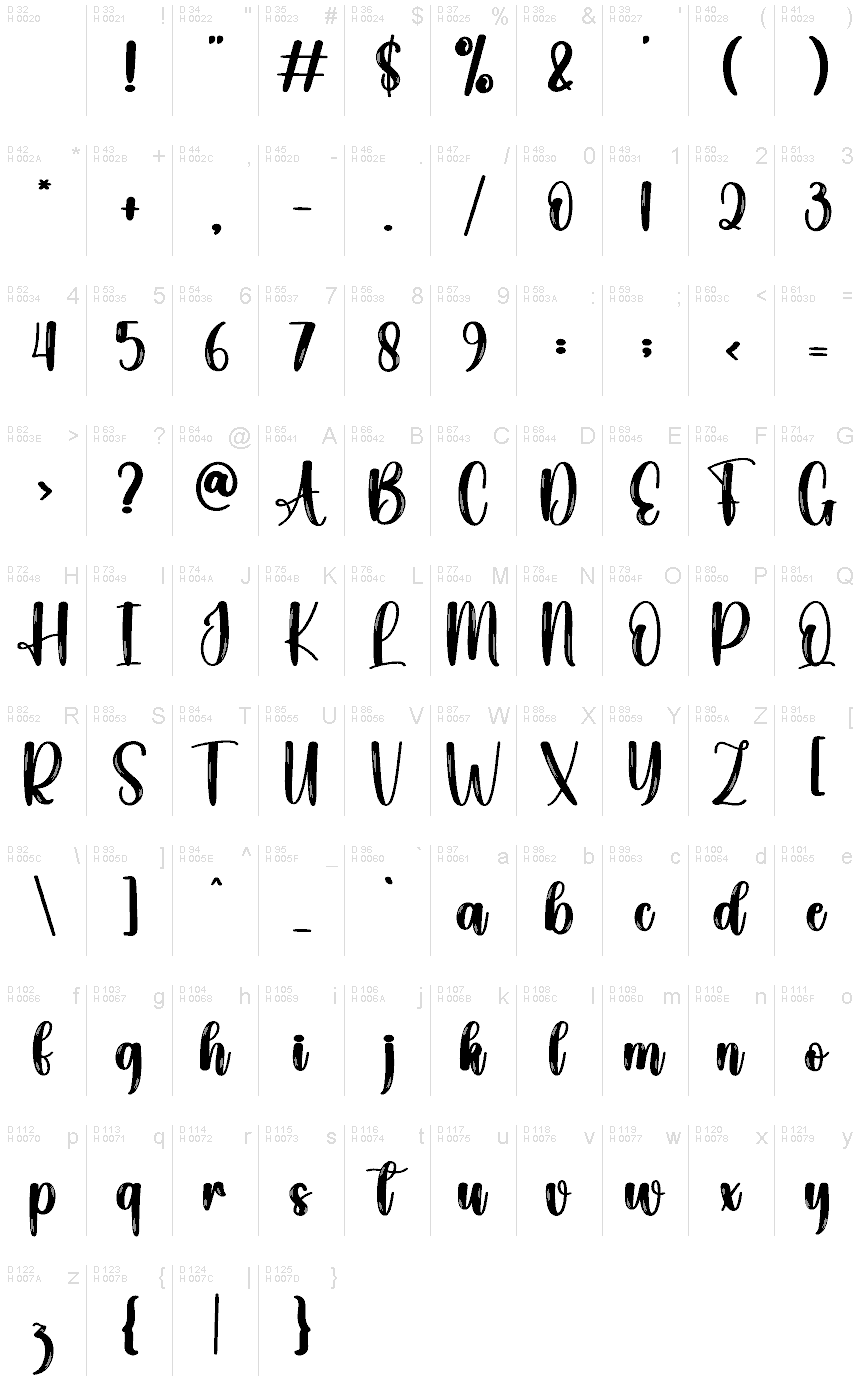
Bally
Bally font by Scratchones is an expressive brush script font with a smooth flow and modern aesthetic. Its artistic flair makes it ideal for adding a creative touch to your designs, embodying both elegance and dynamism as part of its feel. The strokes are subtle but unique, creating readable text that will add the right emphasis needed.